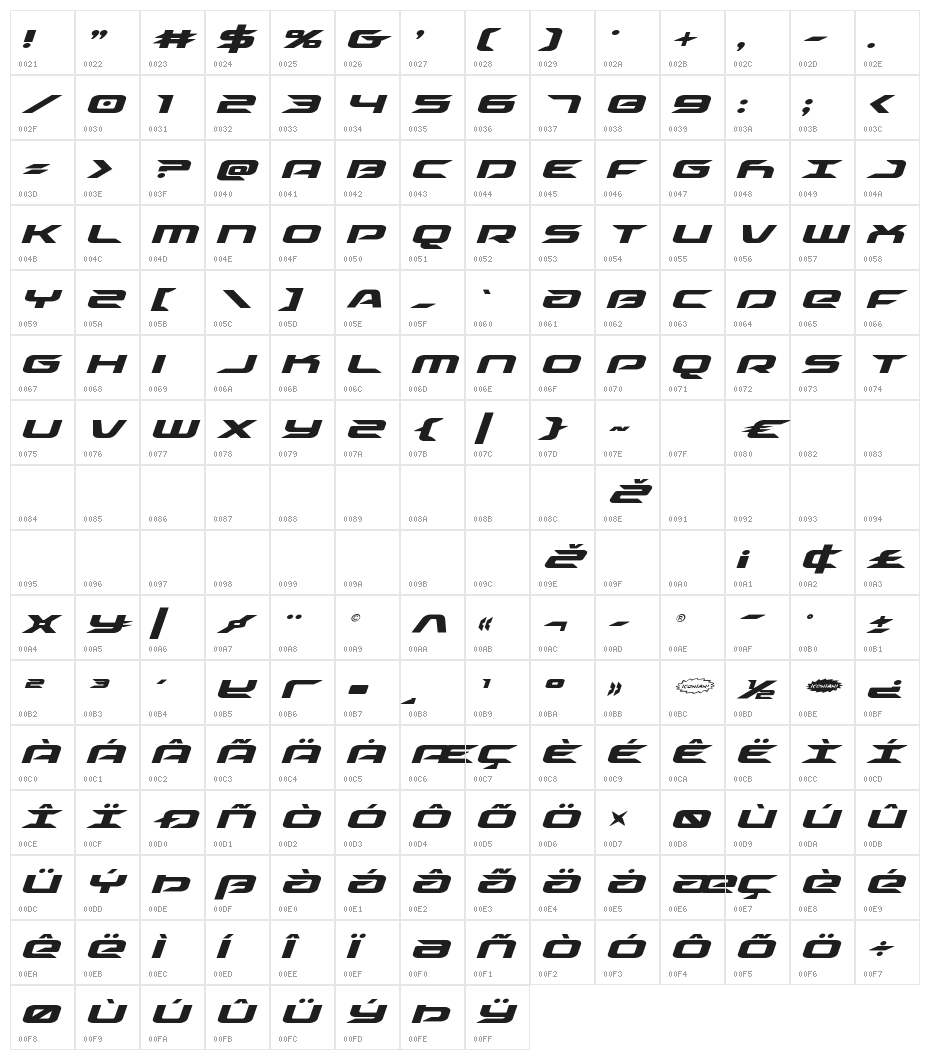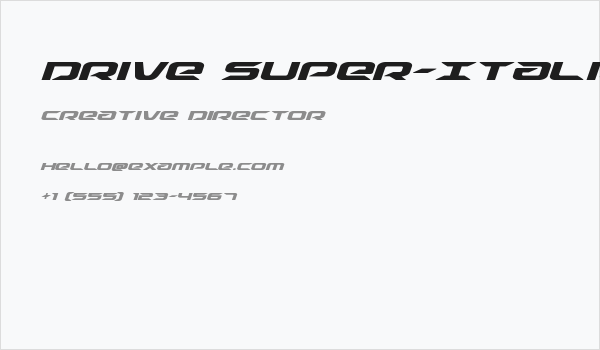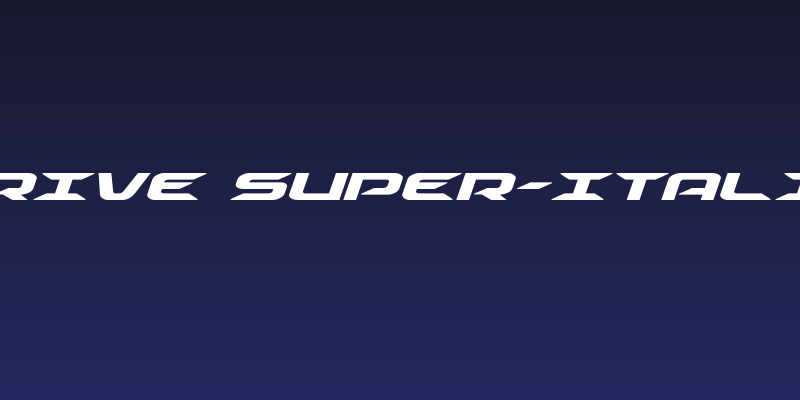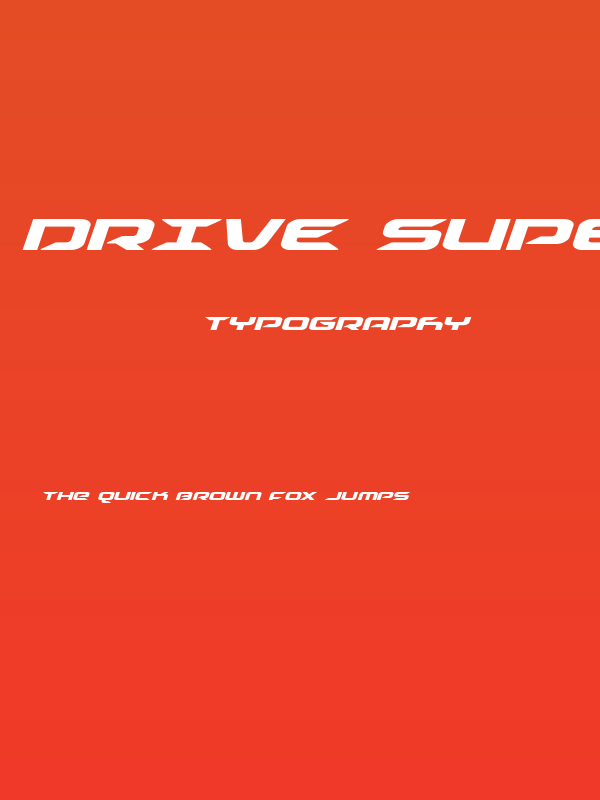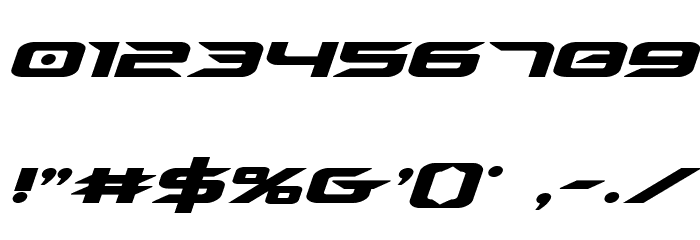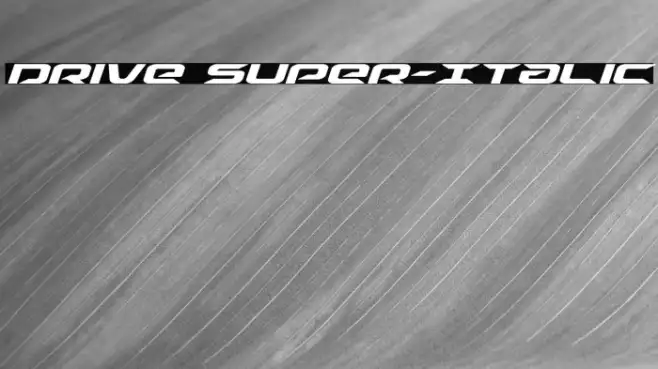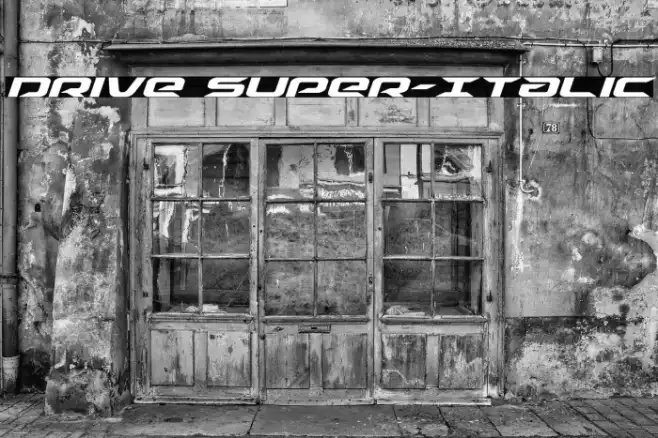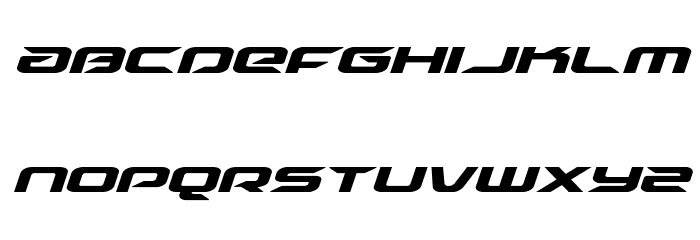
Drive Super-Italic Font
Drive Super-Italic Description
This font features a dynamic and futuristic design with sharp, angular lines and a forward-leaning italic style. The characters are bold and impactful, with a distinct geometric structure that conveys a sense of speed and modernity. The uppercase and lowercase letters maintain a consistent style, enhancing readability while adding a unique flair. Numbers and special characters are designed to match the overall aesthetic, making this font versatile for various applications. Its sleek and edgy appearance makes it ideal for projects that require a contemporary and energetic feel.
| Use Case | Logos, Headlines, Branding |
| Proposed Projects | Ideal for automotive branding, sports team logos, tech product packaging, and modern digital interfaces. |